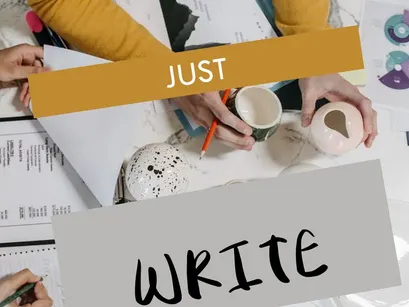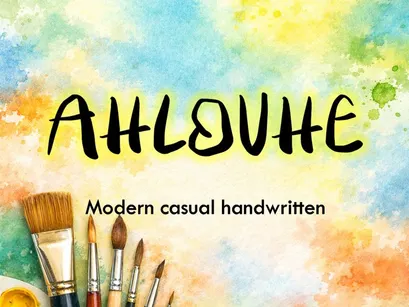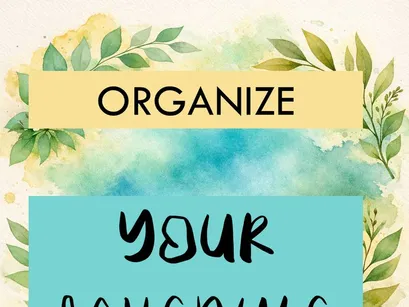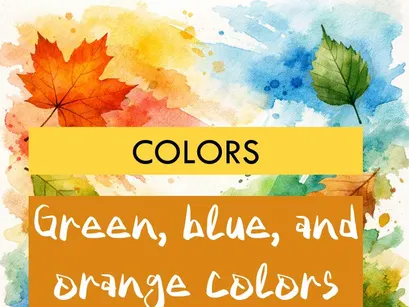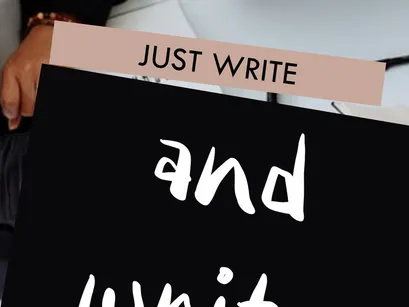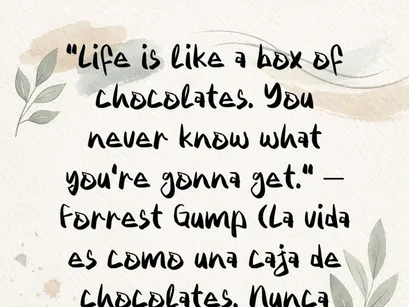
AHLOVHE is a modern, casual handwritten typeface designed for projects that call for a human, artistic, and natural touch.
Its fluid, balanced strokes evoke the spontaneity of handcrafted lettering, making it perfect for planner covers, motivational quotes, creative branding, digital lettering, and personal projects.
It includes a full basic alphabet, numbers, and standard symbols, and supports both English and Spanish text.
Each character was meticulously drawn to reflect the free movement of a brush on paper—ideal for those who love a handmade aesthetic and emotionally resonant design.
🎨 Inspiration:
AHLOVHE was born from a love for manual creation and the beauty of imperfection. It is a font that celebrates authenticity and a passion for art.